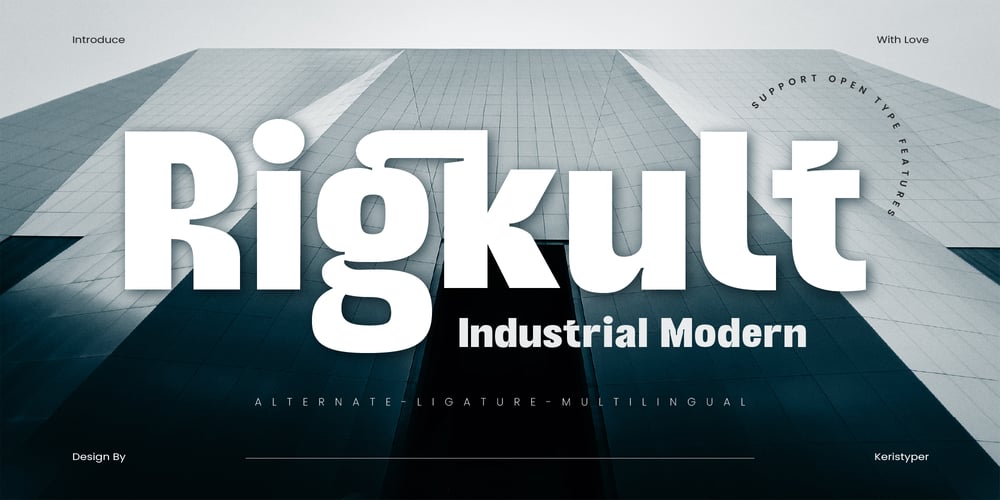
Rigkult Font Family was designed by Tezar Tantular and published by Keristyper Studio. Rigkult contains 1 styles and family package options. Rigkult font is a versatile typeface that combines industrial elements with modern aesthetics. The font features strong and bold characters, making it perfect for logos, headlines, and other display purposes. With its edgy and unique design, Rigkult font is sure to make your designs stand out and grab attention.Featured: Standard, Uppercase & Lowercase Numeral & Punctuation Multilingual : ä ö ü Ä Ö Ü ß ¿ ¡ Alternate & Ligature PUA encoded We recommend programs that support the OpenType feature and the Glyphs panel such as Adobe applications or Corel Draw, so you can use all the variations of the glyphs.Hope you enjoy our fonts!